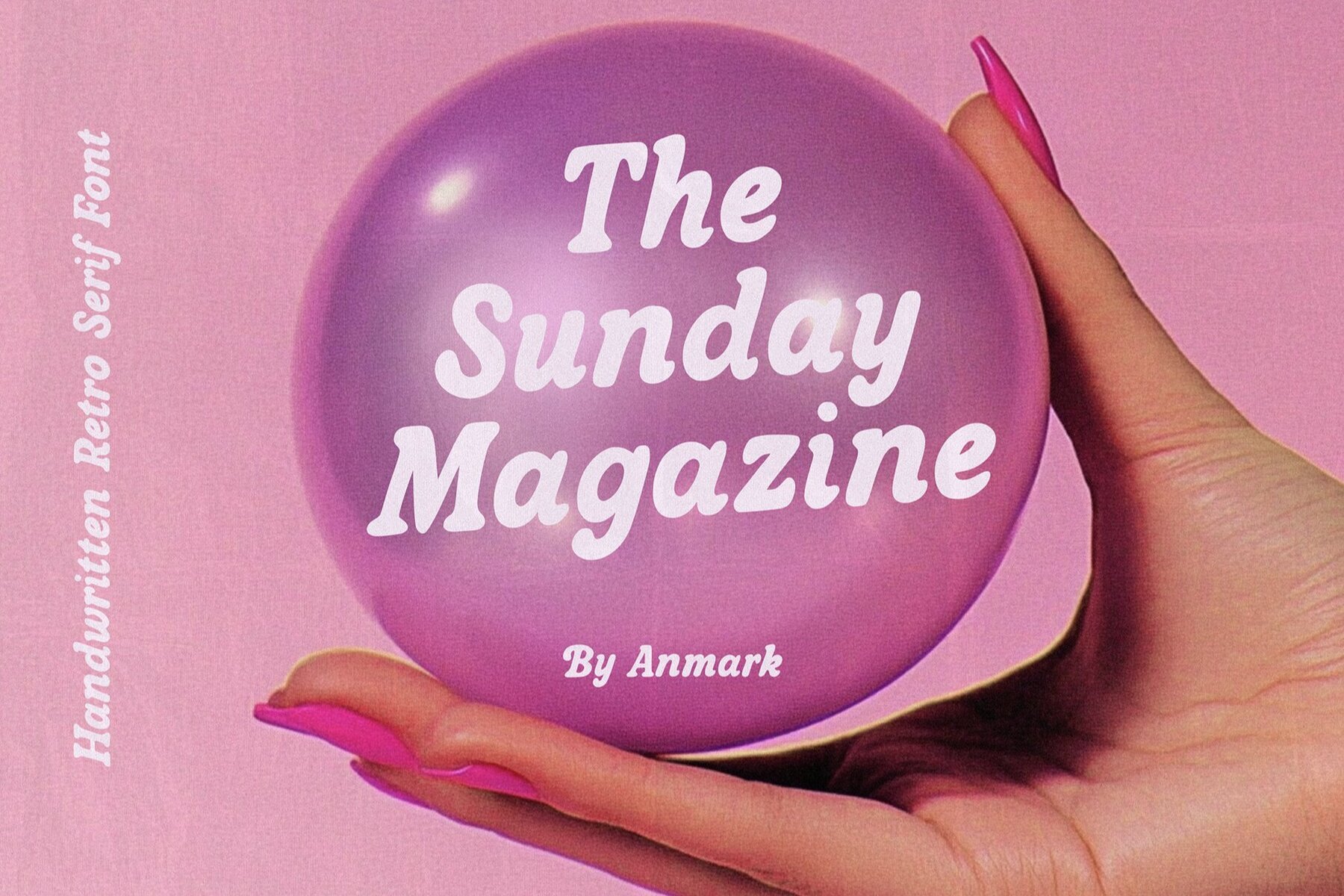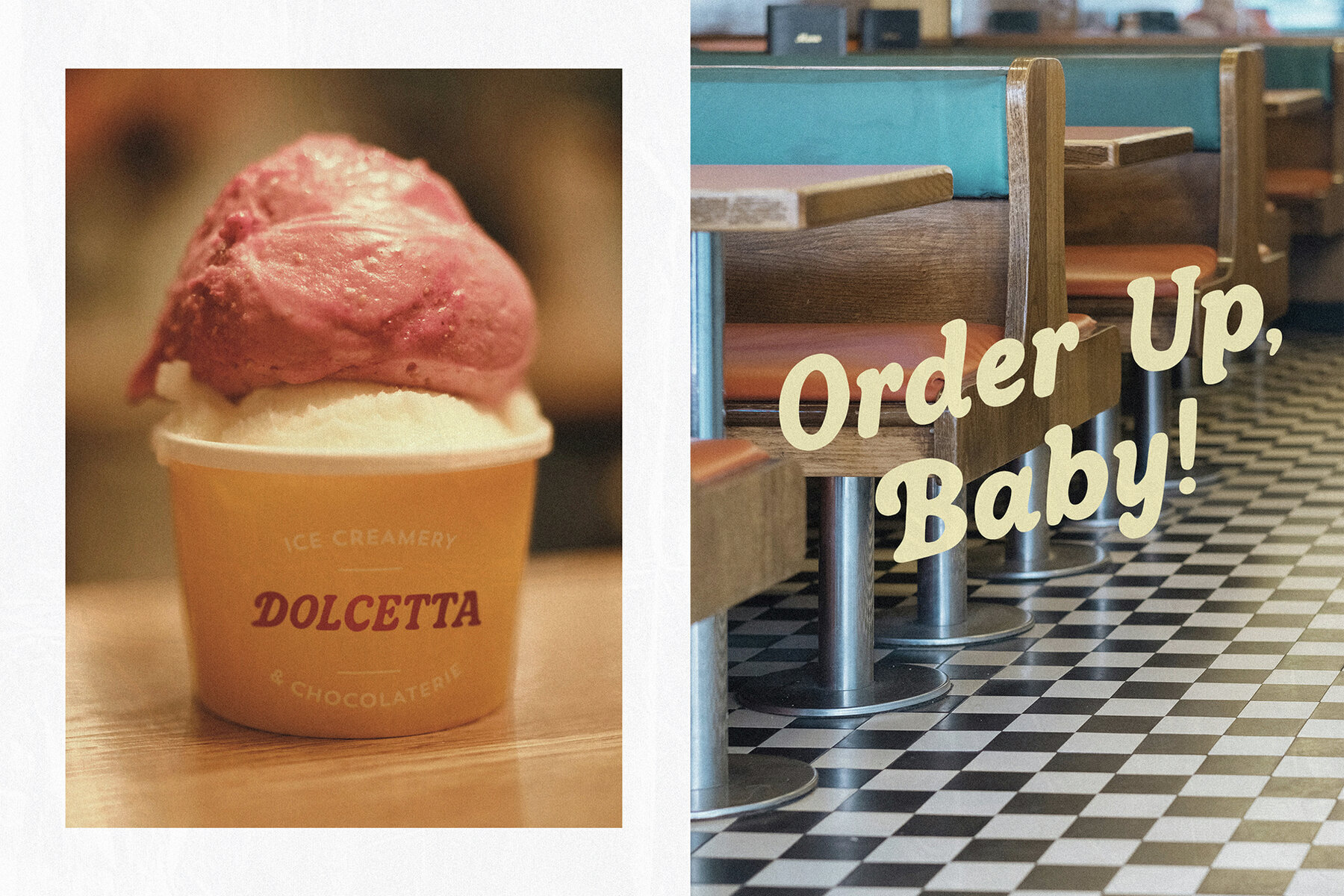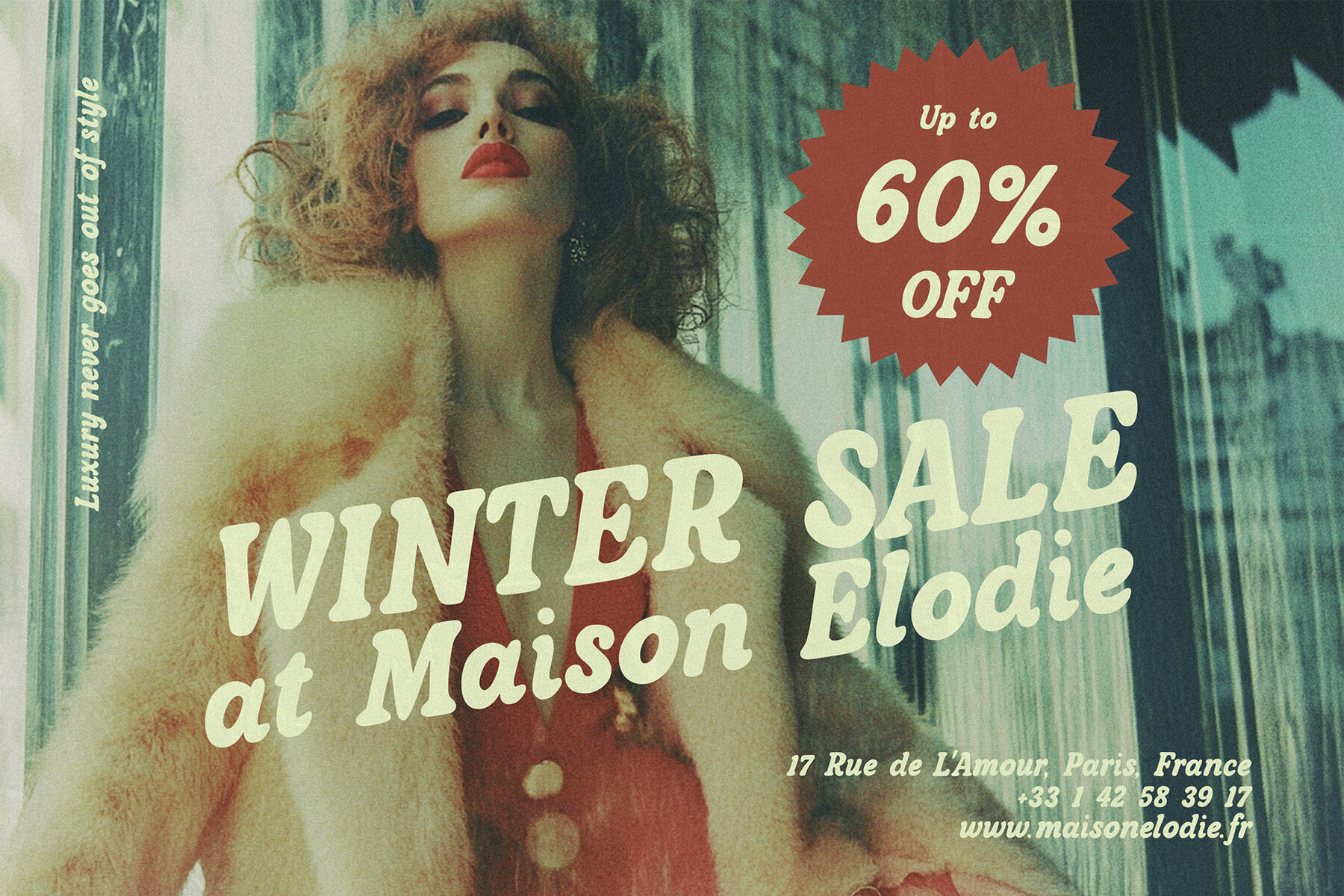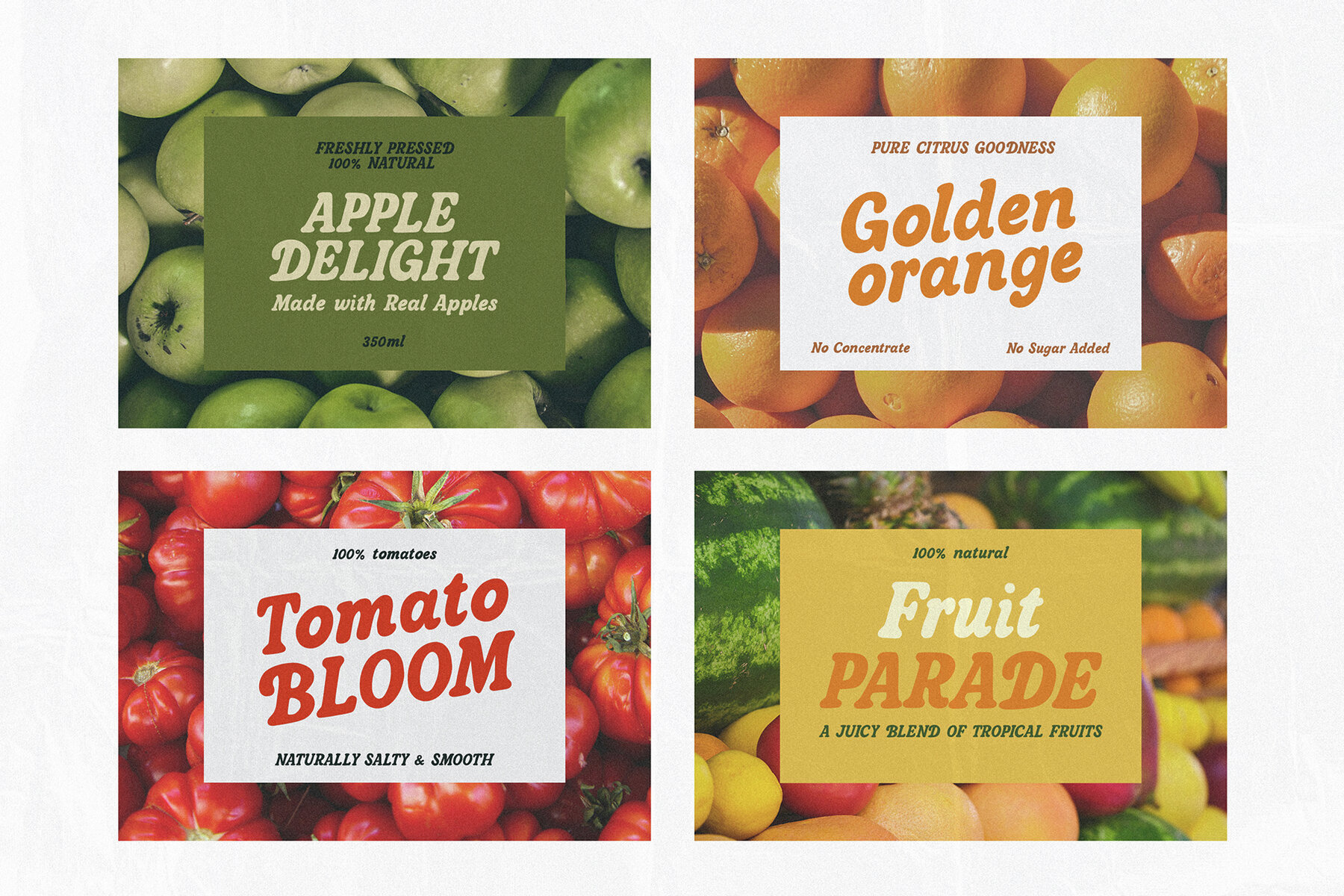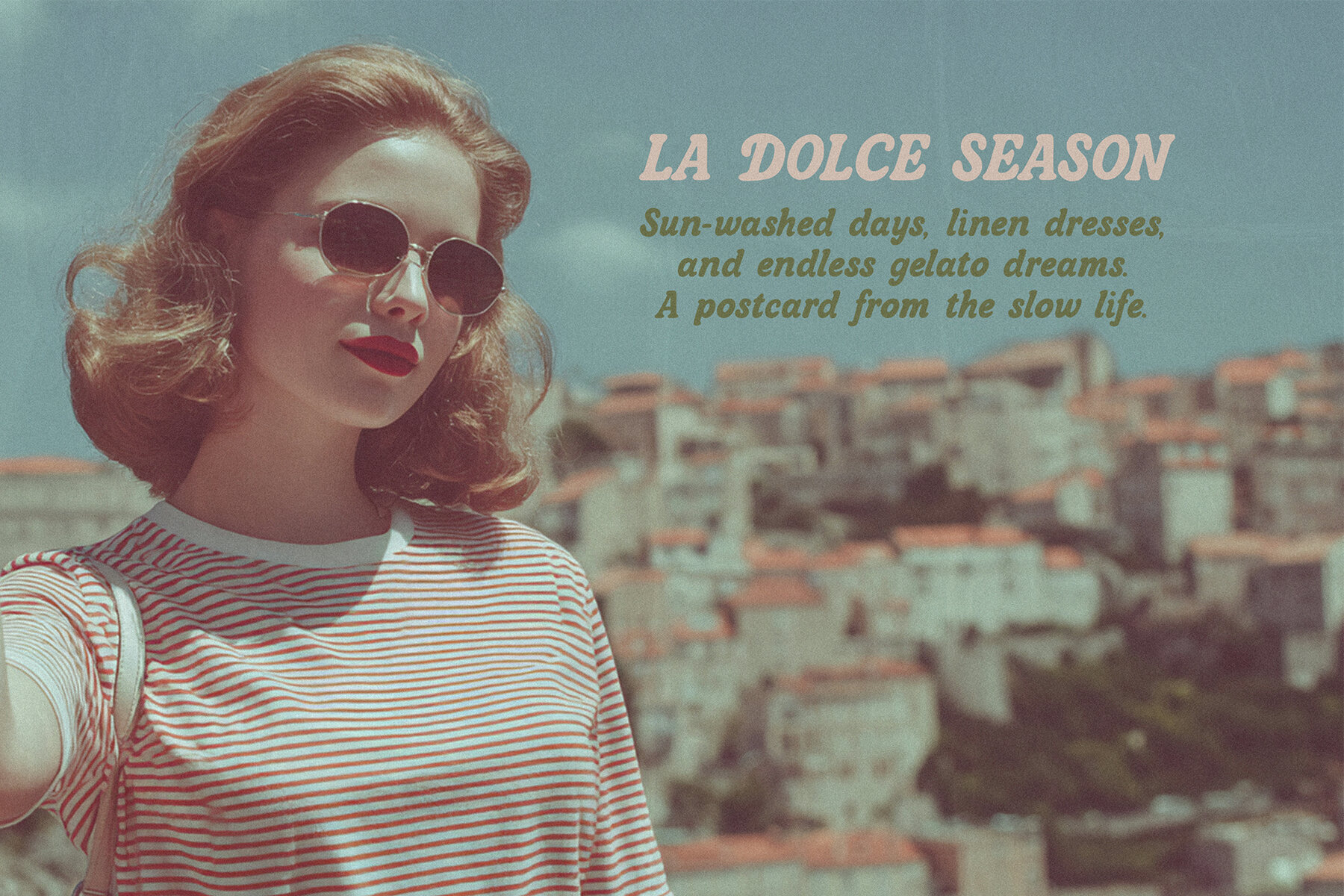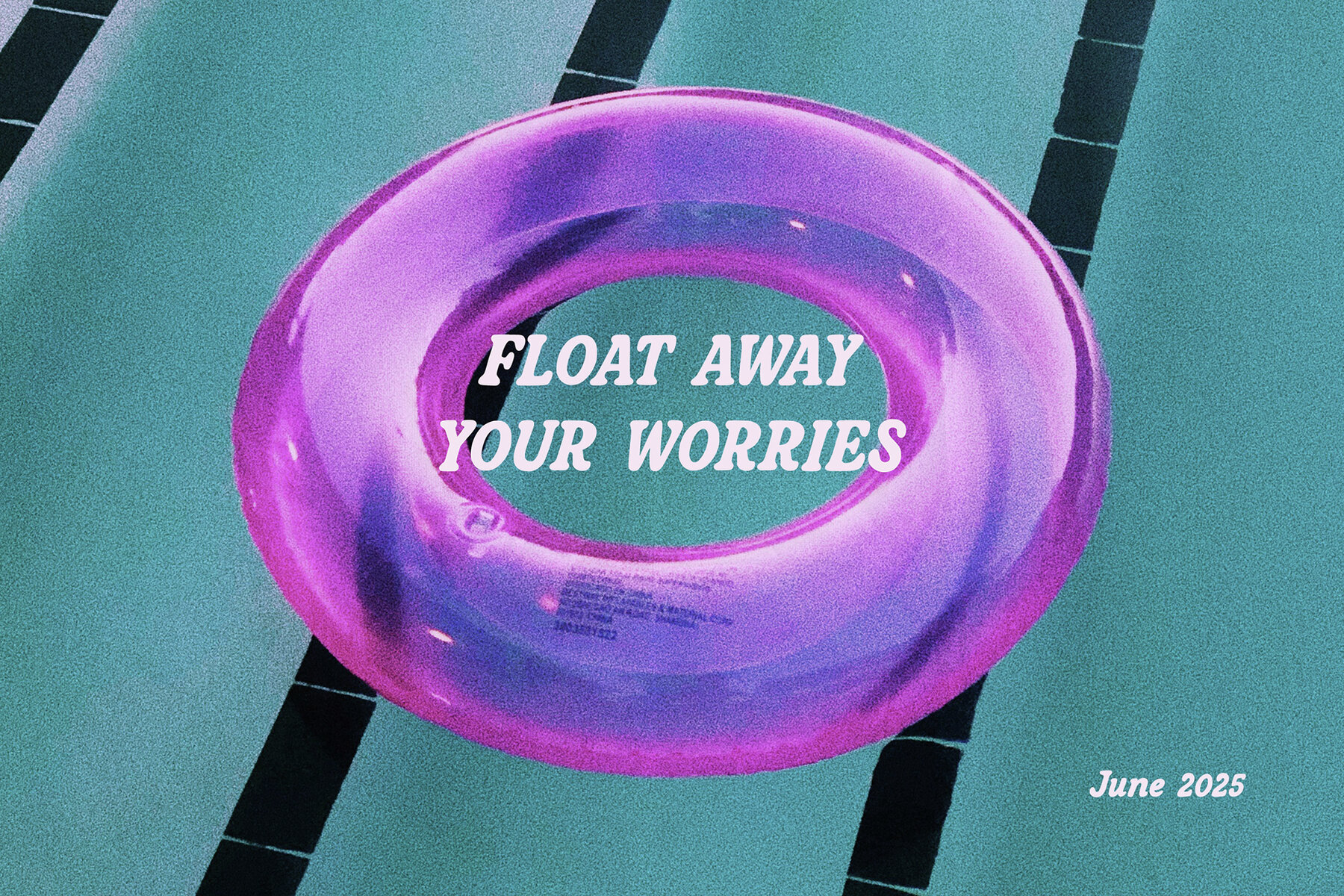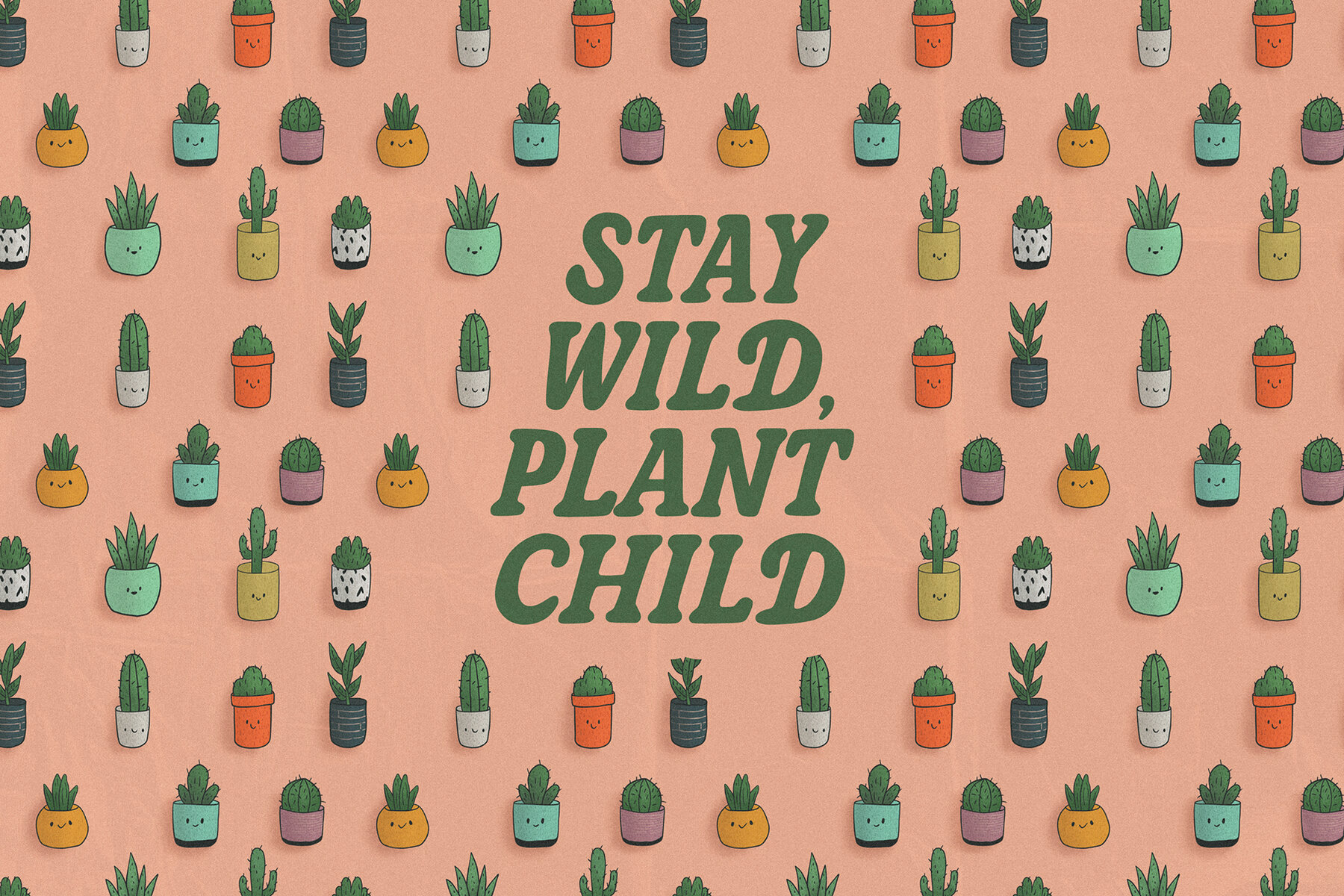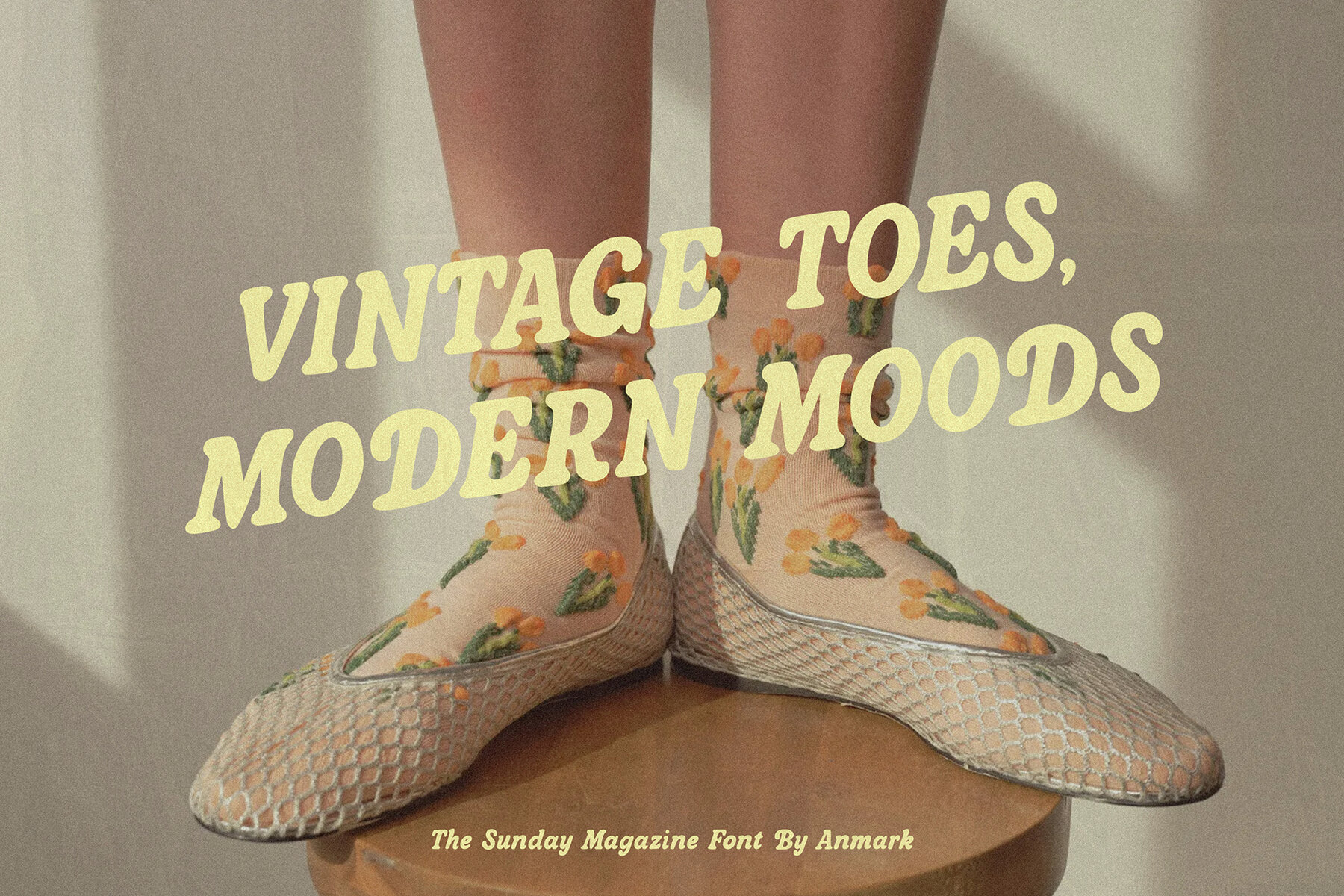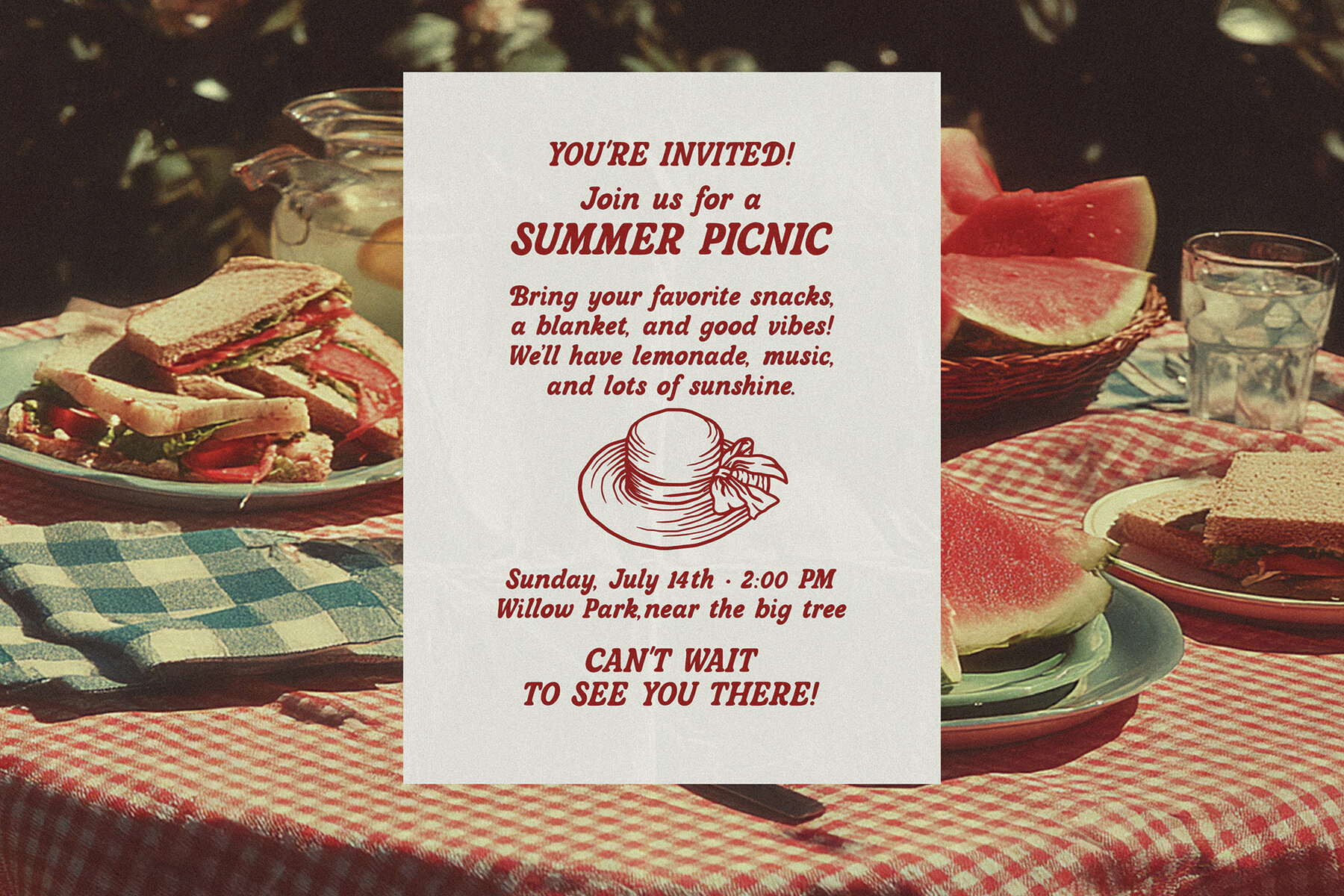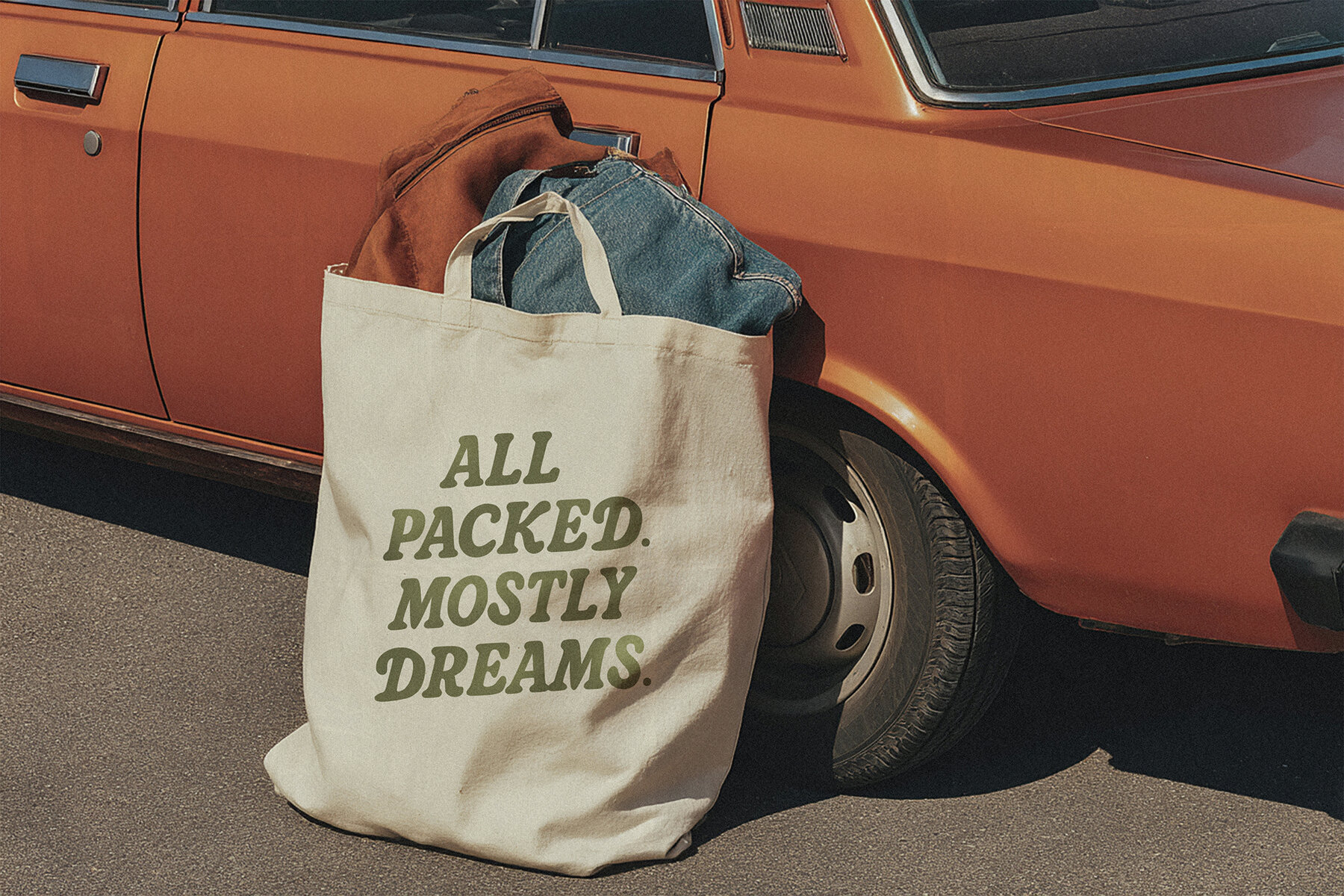
The Sunday Magazine Font
The Sunday Magazine
The Sunday Magazine is a serif typeface that effortlessly combines the charm of vintage editorials with a playful, modern twist. Drawing inspiration from handwritten headlines and the leisurely appeal of printed Sundays, this font imbues each project with warmth and distinctive personality. Its unique letterforms project a sense of timeless freshness, making it an excellent choice for contemporary creatives with a penchant for retro flair. Whether crafting wedding stationery, designing cafe menus, creating product packaging, or enhancing social media graphics, The Sunday Magazine brings an elegant touch. Ideal for several applications, this typeface works beautifully for wedding invitations, restaurant or cafe menus, editorial layouts and branding, greeting cards and gift tags, as well as retro-inspired quotes and prints. Let The Sunday Magazine infuse your modern designs with a nostalgic essence and character.The Sunday Magazine: Nostalgic Serif Typeface